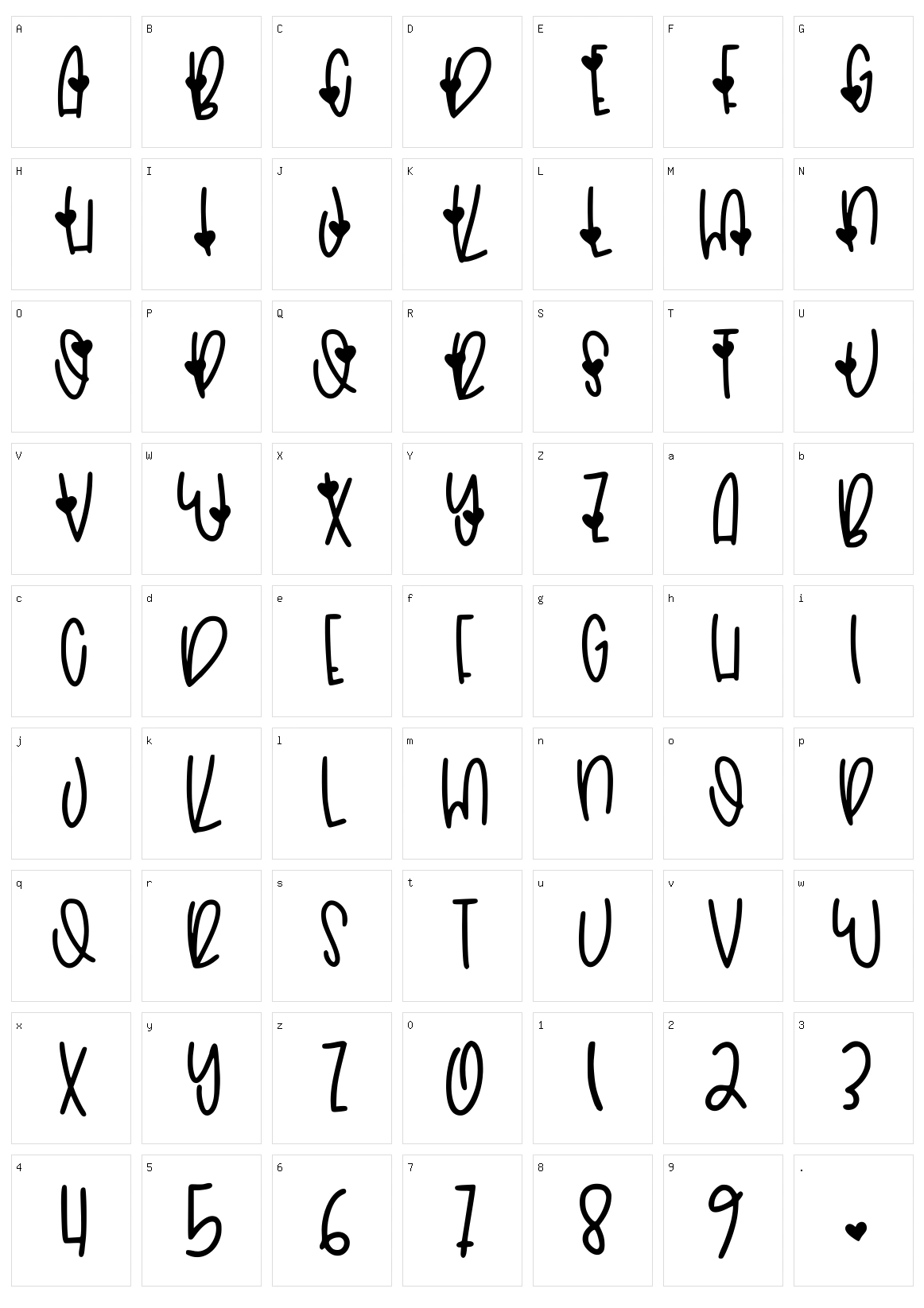
The free font Alyssa Luv is carefully designed by Meonk Plans, showcasing a thoughtful balance of creativity and usability and falls under the Valentine font style. When you download the ZIP file, it contains only 10.55 KB of font files, making it lightweight and quick to download. Please review the license details below to understand permitted usage and distribution rights. If license information is not available, we recommend using this font for personal projects only or contacting the author directly for commercial usage permissions.